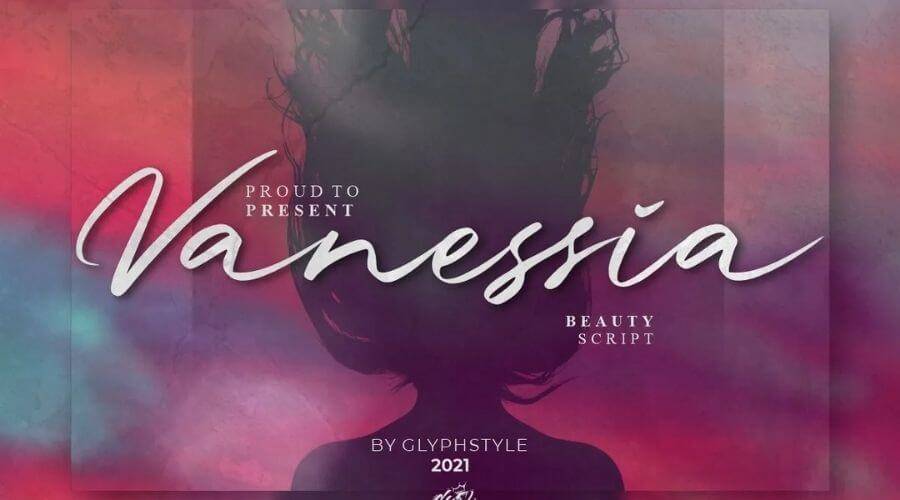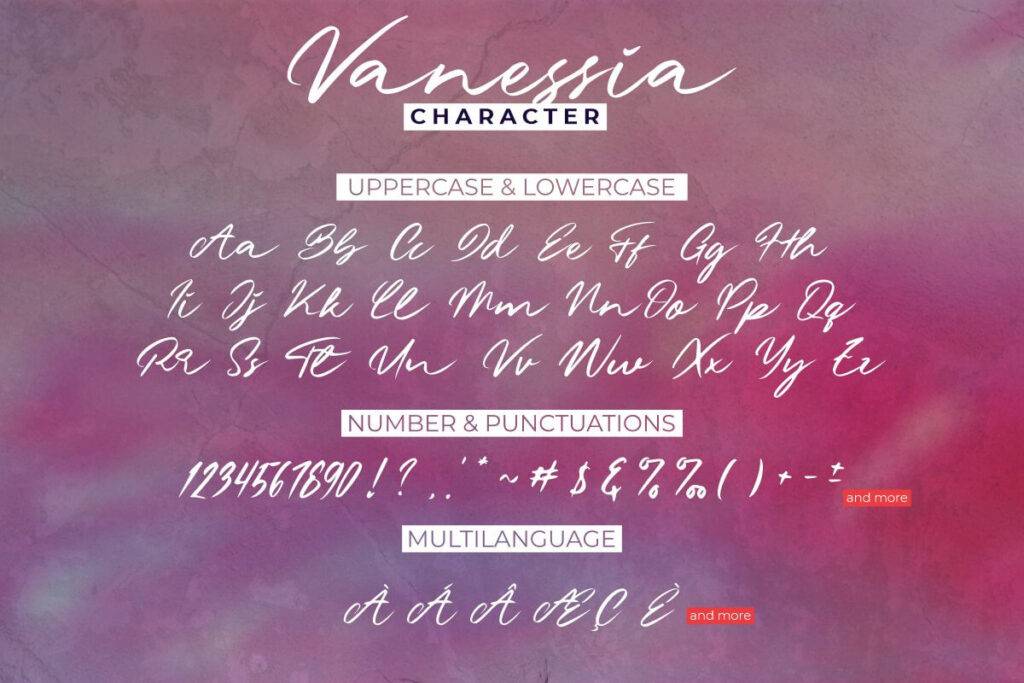
Introducing the brand new Vanessia! It is a Handwritten and script font that appears thick and thin. These are Beautiful fonts with herbal hand scratches with the brush. The font is designed and posted with the aid of using Glyphstyle. The Font is only for private use! Starting with uppercase, lowercase, Numeric, and positive Special individual and alternatives, fonts are available. In maximum cases, the typeface seems amazing in ambitious texture. The font seems outstanding in a lot of setups, from informal to aesthetic.
Vanessia is best for branding projects, logos, wedding ceremony designs, social media posts, advertisements, product packaging, product designs, labels, photography, watermarks, invitations, stationery, and any mission that calls for a feel of a script typeface. A font is also a great option where you need a touch of aesthetic essence.